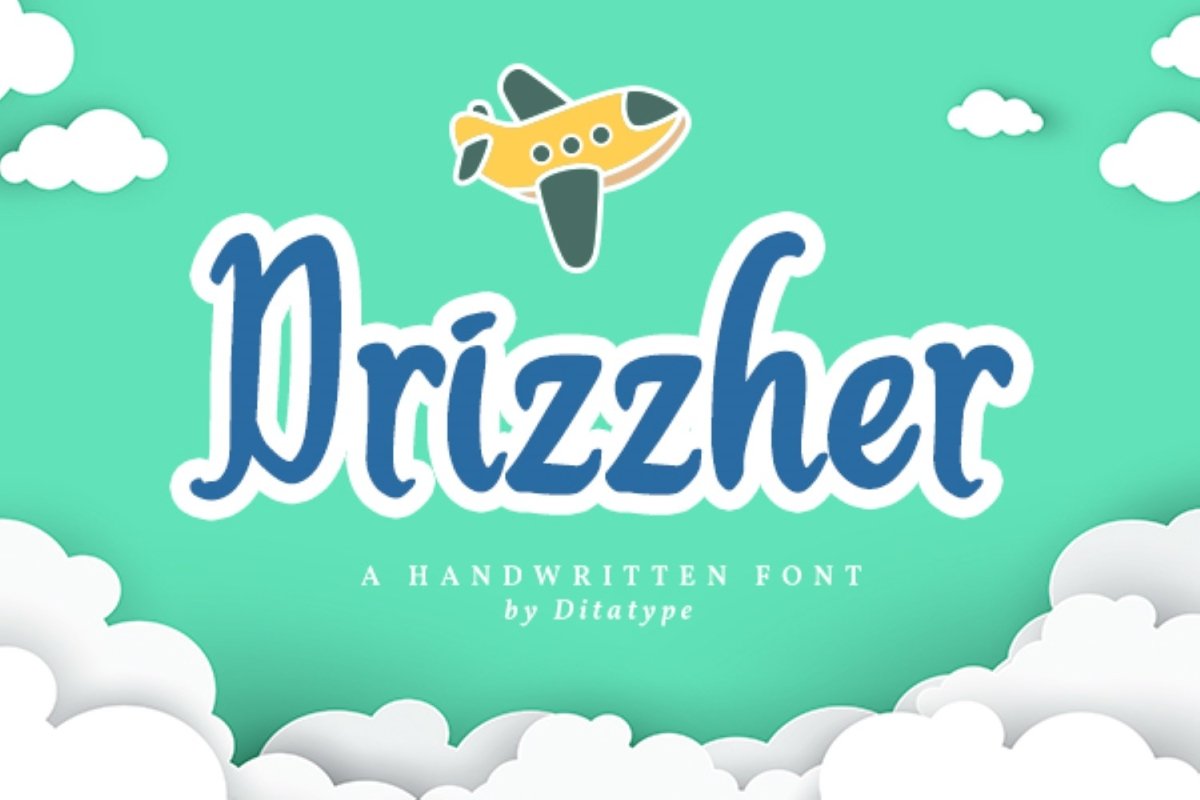
Drizzher
Drizzher embodies fun, quirkiness and authenticity. This enchanting display font will turn any creative idea into a true standout. Get creative with its unique playfulness, and use it to brighten up any crafting project!
• Accents (Multilingual characters)
• Numerals and Punctuation (OpenType Standard)